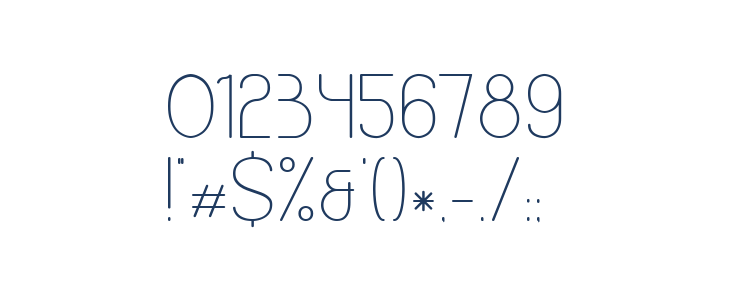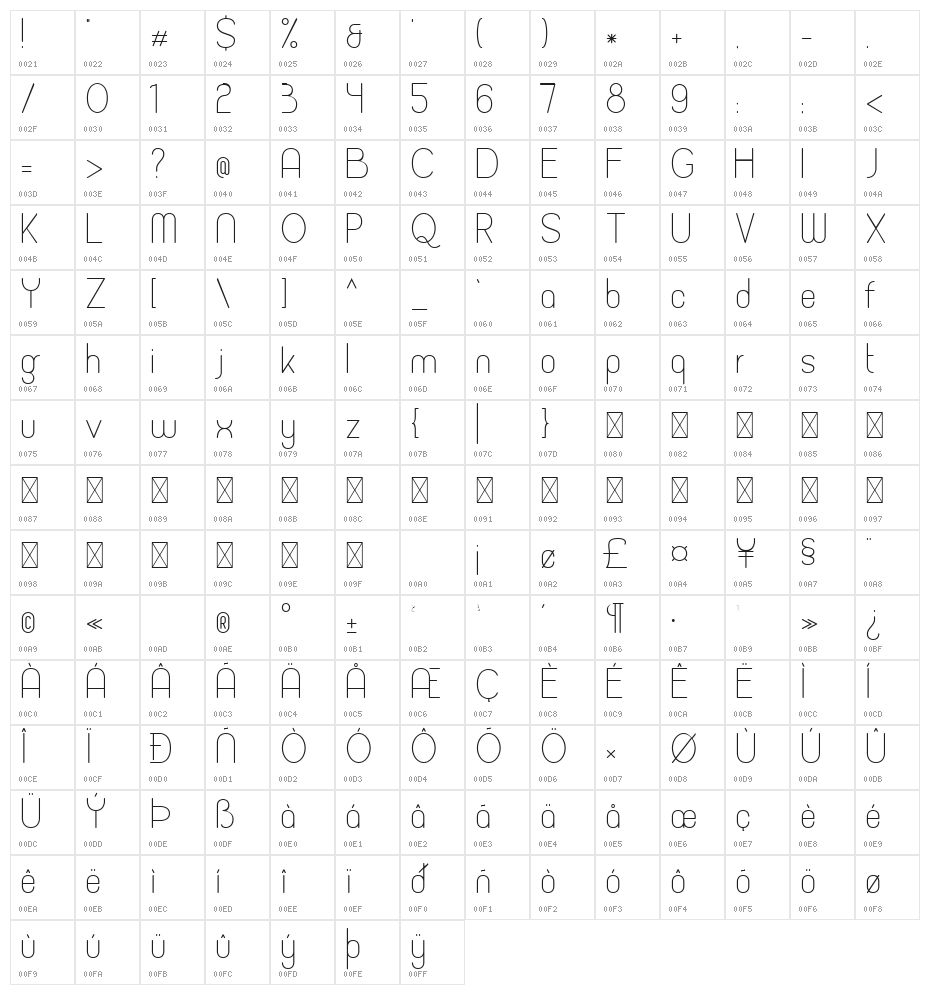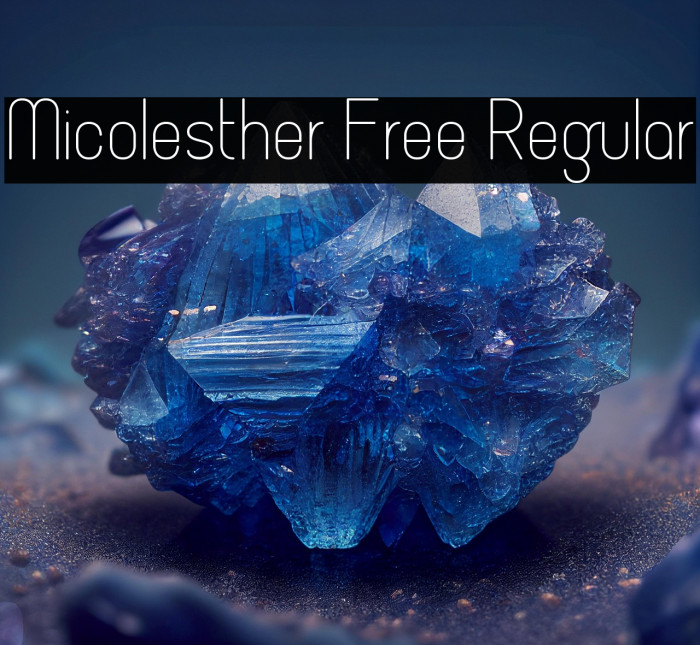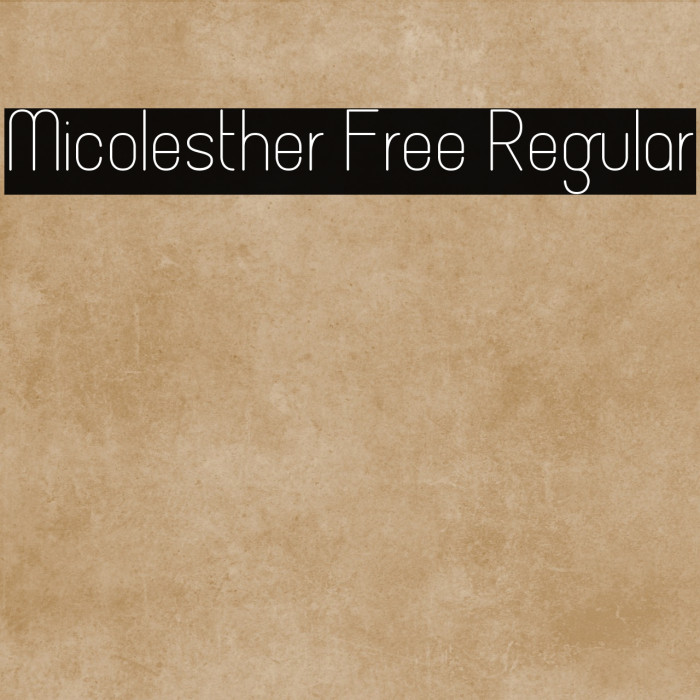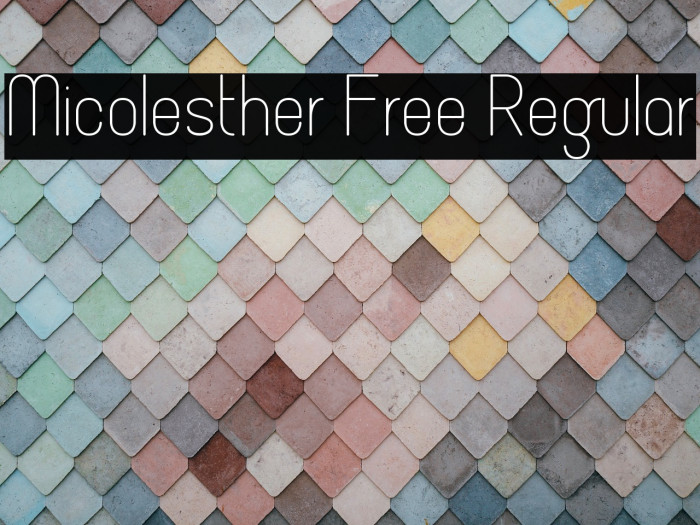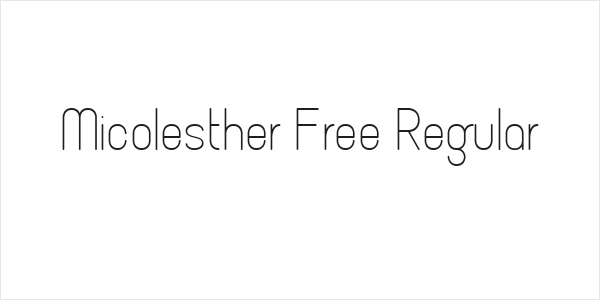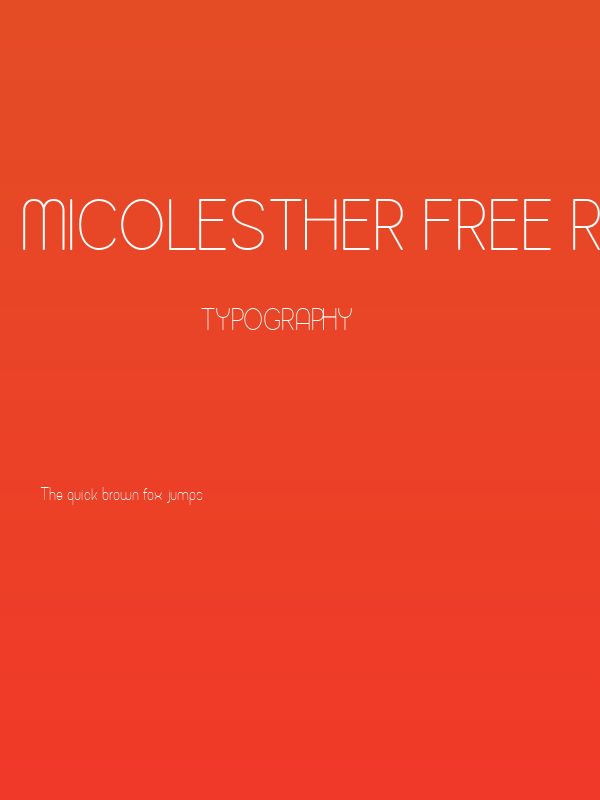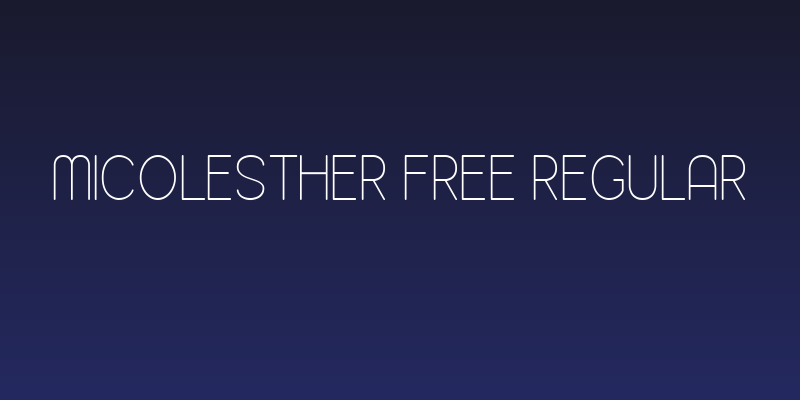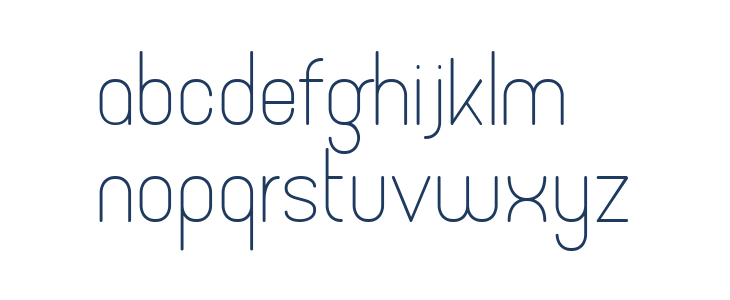
Micolesther Free Regular Font
Micolesther Free Regular Description
This font features a clean and modern design with rounded edges and a geometric structure. The uppercase and lowercase letters maintain a consistent height, creating a harmonious and balanced appearance. The numerals are distinct and easy to read, with a uniform width that complements the overall style. Special characters are elegantly integrated, maintaining the font's sleek and minimalistic aesthetic. The thin lines and open spaces give it a light and airy feel, making it suitable for a variety of design applications.